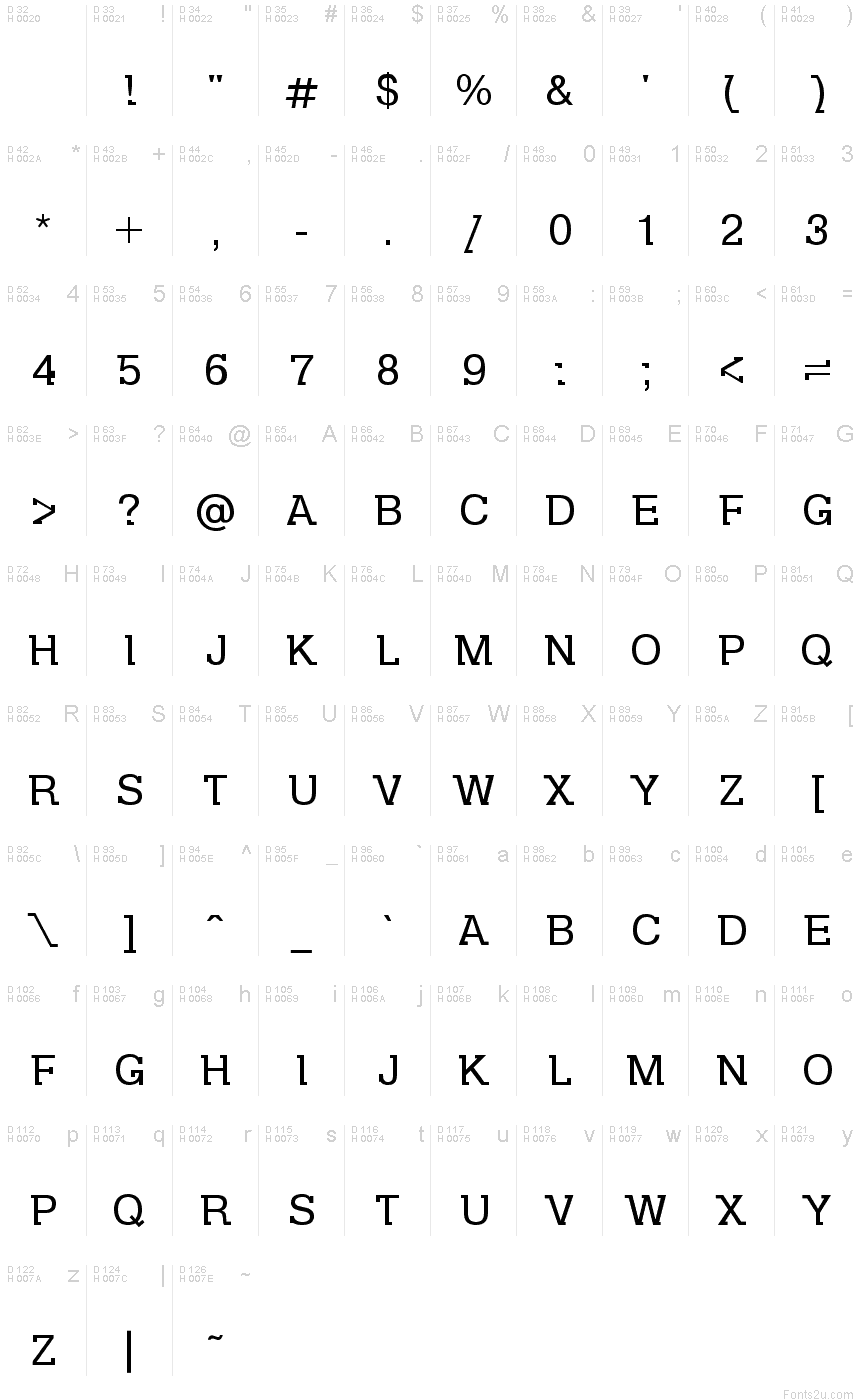
DS Kolovrat
DS Kolovrat font by Dubina Nikolay is a free geometric serif typeface with a strong, engineered presence. Its letters feel carved from metal: straight verticals, squared bowls, and tight, almost mechanical joins give every word a rigid, architectural rhythm. There’s a cool tension between the strict geometry and the subtle curves, which makes headlines look both modern and slightly enigmatic.
Using DS Kolovrat, you can push bold branding, poster work, experimental editorial layouts, techno or industrial-themed event graphics, game titles, and striking signage. This free font shines at large sizes where its angular structure and chunky serifs can really lock together. For longer supporting text, pair it with a clean grotesque sans at smaller sizes to keep the message sharp and legible.